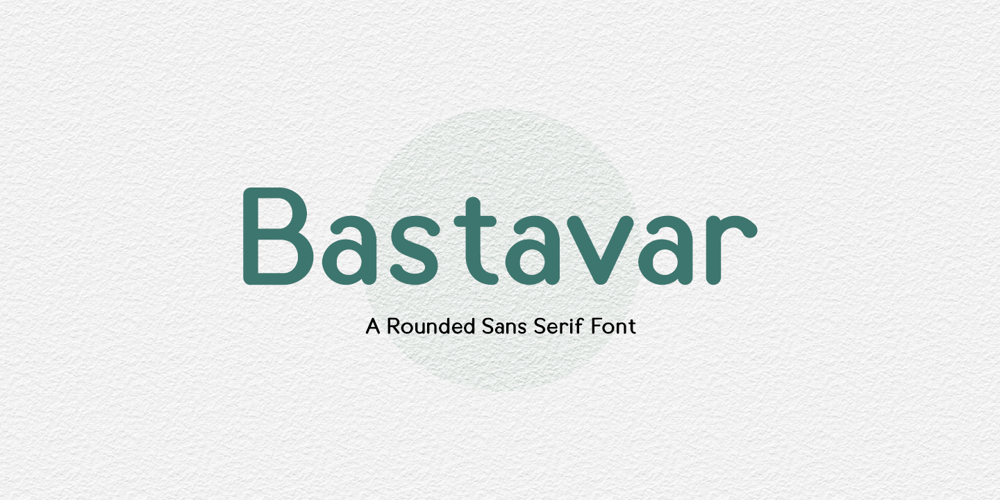
Bastavar Font Family was designed by Hayinah and published by Rockboys Studio. Bastavar contains 1 styles and family package options. Bestavar is a modern sans-serif font known for its clean, geometric design and excellent readability. Its characteristics include: Geometric Shapes: Bestavar features precise geometric forms, which give it a contemporary and structured look. The letterforms are uniform and symmetrical, enhancing its clarity and legibility. Versatility: The font is designed to work well across various applications, from headlines and branding to body text and user interfaces. Its versatility makes it suitable for both print and digital media. Neutral Tone: With its minimalistic design, Bestavar maintains a neutral and professional tone. This makes it an ideal choice for corporate identities, tech companies, and modern websites. Clean Lines: The strokes are evenly weighted, contributing to a tidy and polished appearance. The lack of excessive ornamentation ensures that the focus remains on the content rather than the font itself. Wide Range of Weights: Bestavar often comes in multiple weights, providing flexibility for different design needs, from bold headlines to light text. Balanced Proportions: The font features well-balanced proportions that ensure consistency in text layout and contribute to its overall readability. Overall, Bestavar is praised for its modern aesthetic and functional design, making it a popular choice for a wide range of design projects.